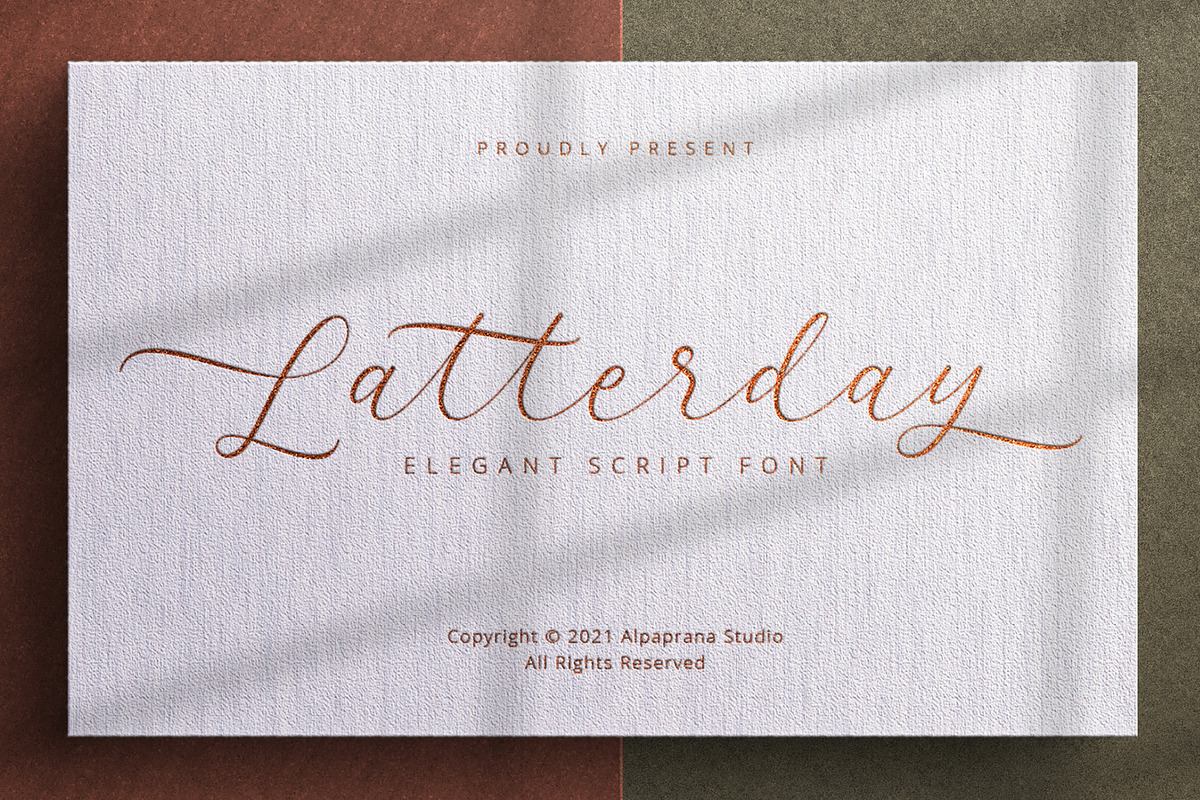
Latterday - Elegant Script Font Free Download
The Latterday - Elegant Script Font Free Download is a refined and graceful script typeface designed to bring sophistication and style to your projects. Perfect for wedding invitations, branding, fashion, luxury product packaging, and editorial design, this font exudes timeless elegance.
With its flowing curves and smooth, hand-lettered feel, Latterday adds a personalized touch to any design. It includes uppercase and lowercase letters, ligatures, stylistic alternates, punctuation, and multilingual support, making it versatile for various creative applications.